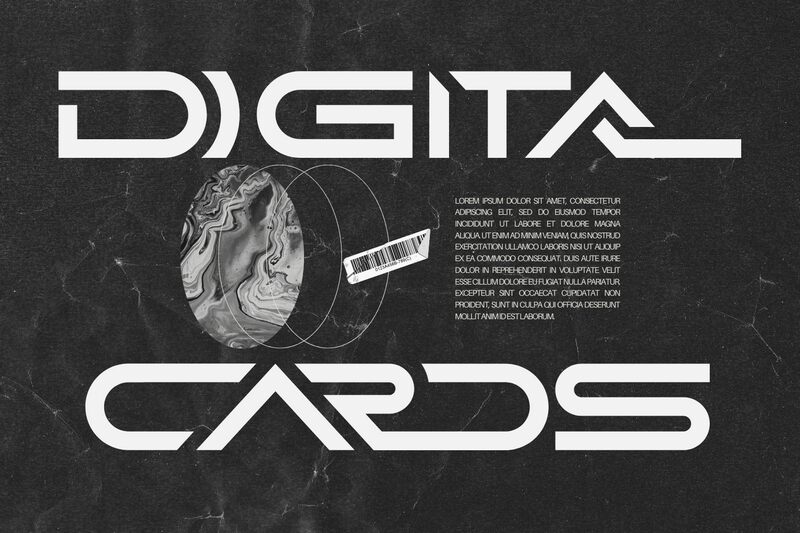
Digital Cards Demo Regular
Digital Cards font by 177Studio is a futuristic display font with expanded letters. An overall robotic style becomes apparent through its technical vibe, geometric shapes, and sharp angles. The modern aesthetics of the font are strongly digital influenced.
Ease-fitted for tech fields, Digital Cards is perfect for software-related logo design, conferences posters, technology books covers and titles, video games design projects like apps or even board games.